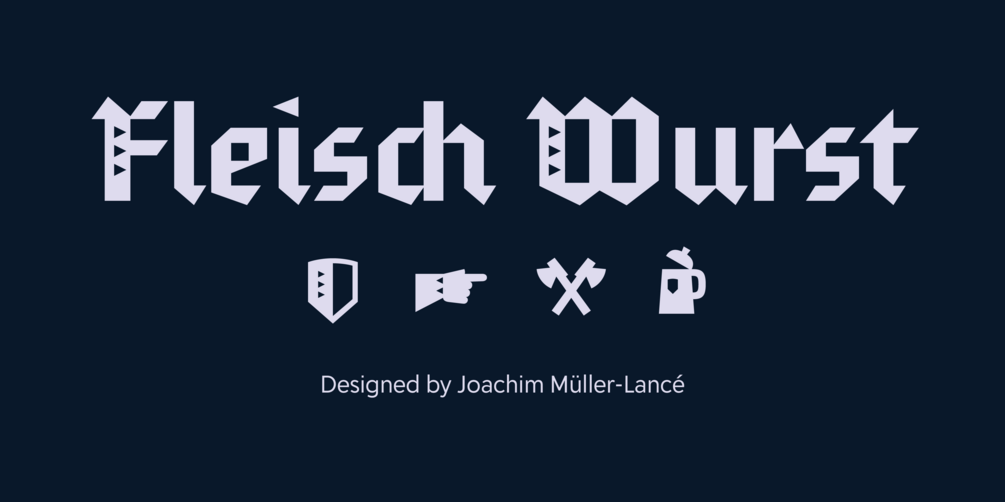
Fleisch Wurst is a blackletter type inspired by lettering that the designer, Joachim Müller-Lancé recalls from his childhood but Fleisch is not based on any particular era, region, or style of blackletter, instead it borrows freely from various sources.
Joachim focused on the modularity of brokenscript as his basic idea for Fleisch. The letters aren’t just made up from lines of varying thickness. For example, the inside or ‘counter’ spaces are rectangular (not hexagonal) producing a different interaction with the outside shapes and the spaces between letters, most visible in the letter “o”.
In addition to lining and oldstyle figures, Fleisch Wurst offers native blackletter shapes as alternates, a full set of decorative uppercase letters, currencies, punctuation, and a handful of regalia (symbols).
The suggested use of Fleisch is as a fresh alternative to the more traditional blackletter styles for greeting cards, food packaging, beer labels, and more. •!•